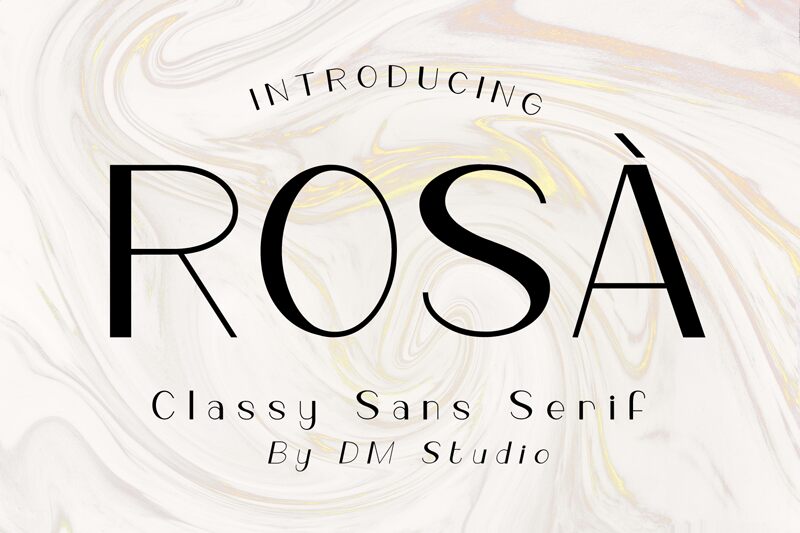
ROSÀ, a classy sans serif font designed by Dm Letter Studio - Dimas Prasetyo, exudes elegance and sophistication. With its semi-light weight, ROSÀ is perfect for projects that require a touch of refinement and modernity.
Its clean lines and balanced proportions make it ideal for luxury branding, editorial design, and high-end fashion magazines. Whether used in headlines or body text, ROSÀ adds a touch of sophistication to any project.